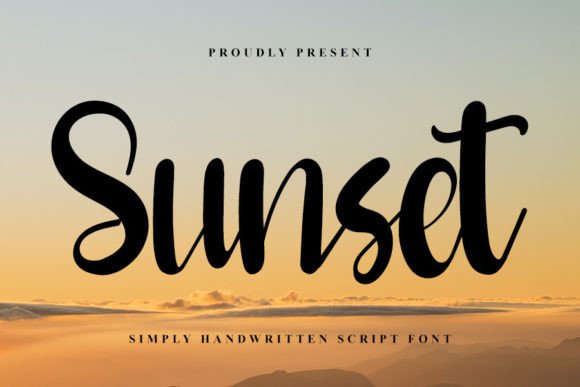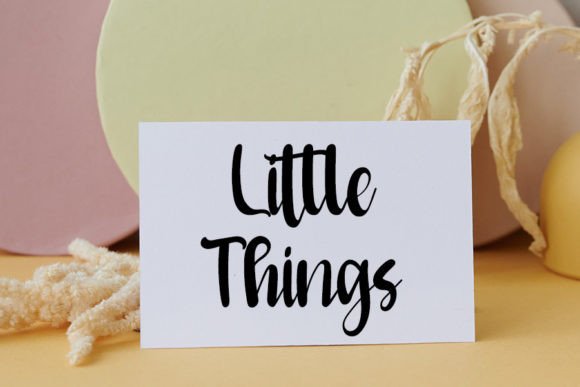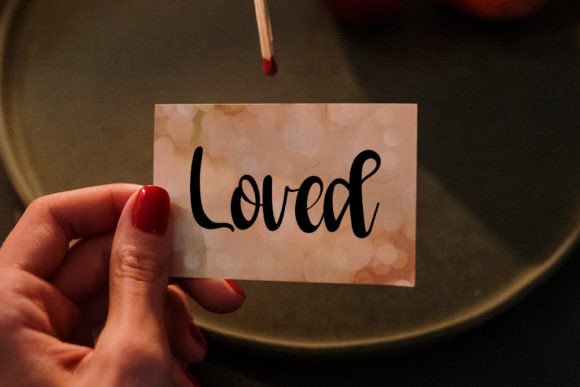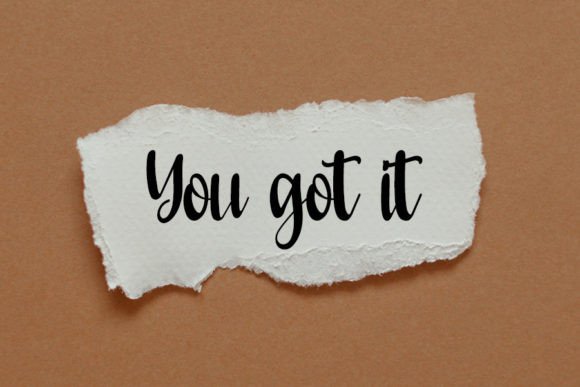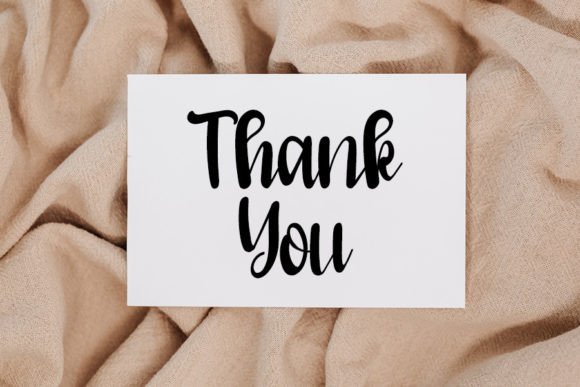
Sunset Font
About Sunset Font
Sunset font is a beautifully crafted handwritten typeface designed to bring an elegant and personal touch to your creative projects. Its neat strokes and timeless style make it a versatile choice for a variety of design needs, from wedding invitations to branding and social media content.
Elegant and Distinct Style
Sunset font stands out with its refined and graceful handwriting style. The elegant curves and smooth lines create a distinctive look that adds sophistication to any project. Whether you’re designing logos or greeting cards, Sunset enhances the visual appeal with its charming personality.
Ideal for Wedding Invitations and Stationery
The font’s classic and clean handwritten style makes it perfect for wedding invitations, thank you cards, and other stationery items. It brings a romantic and intimate atmosphere, helping to set the right mood for special occasions.
Great for Branding and Social Media
Sunsetfont works wonderfully in branding projects, adding a personal and approachable feel to logos, packaging materials. It also shines in social media posts, where its unique style can help capture attention and engage your audience effectively.
Versatile for Various Design Uses
Beyond weddings and branding, Sunsetfont is excellent for quotes, posters, photography watermarks, and more. Its flexibility ensures it can elevate any design that needs a elegant touch.
Why Choose Sunset Font?
With its timeless style, Sunsetfont is a valuable addition to any designer’s toolkit. It combines with versatility, making your projects look polished and heartfelt every time.